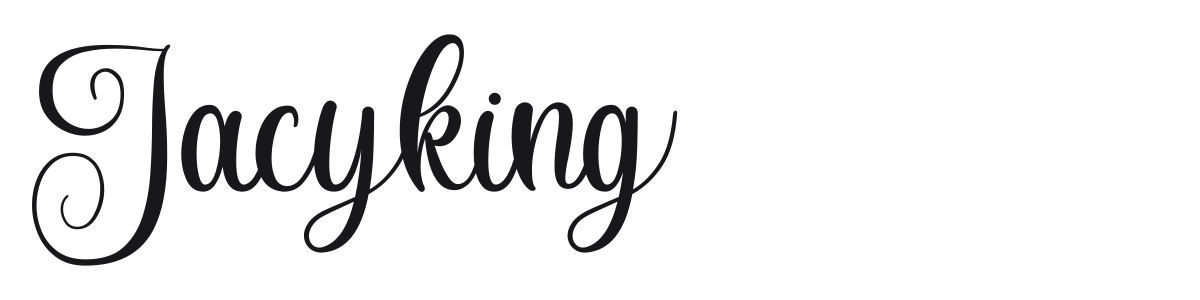
Jacyking
Jacyking is a bold casual script with sweeping loops, flowing connections, and a lively bouncing rhythm. The heavy strokes and generous curves give it real presence on a page, while the calligraphic contrast keeps it from feeling clunky. It suits branding, packaging, and anything that needs a handcrafted, approachable tone.